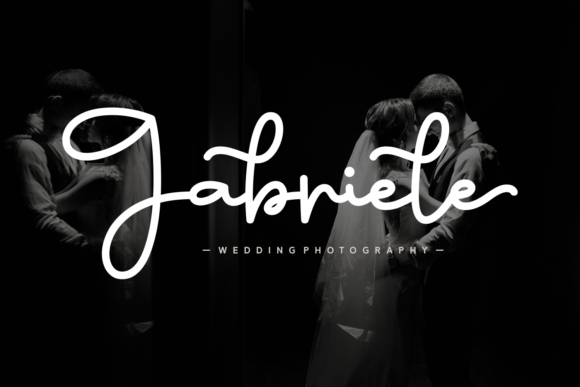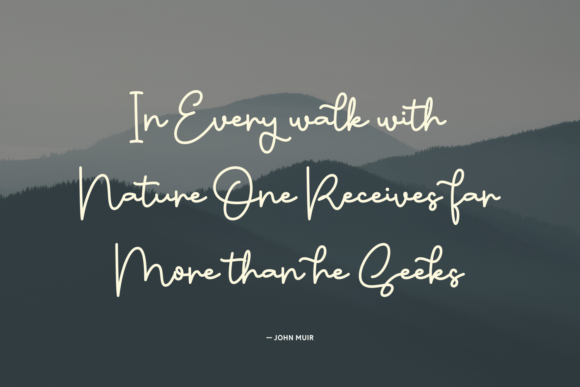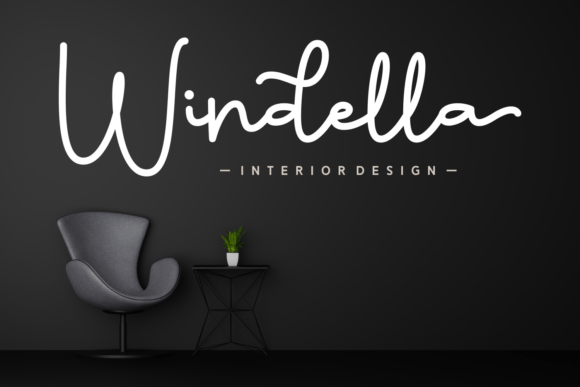
Introduction to Kayline Font
Kayline is a graceful and modern calligraphy script font that exudes elegance and simplicity.
With its smooth flow and beautifully connected strokes, this font is perfect for wedding stationery, branding, social media designs, or any project that requires a sophisticated handwritten touch Kayline combines charm with versatility, making it ideal for both personal and professional designs.
Key Features of Kayline Font
Why Choose Kayline Font?
Kayline Font offers exceptional quality and versatility, making it a valuable addition to your design toolkit. Whether you’re creating for personal projects or commercial use, Kayline Font delivers professional results.